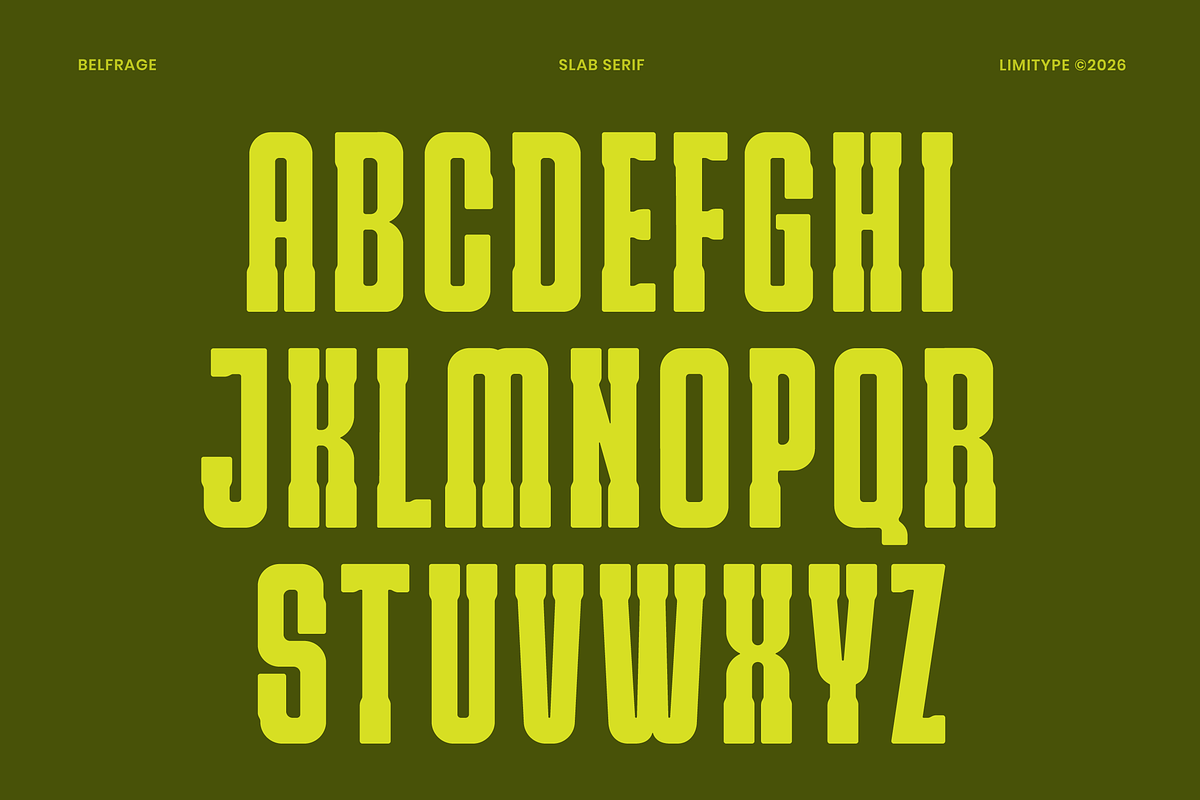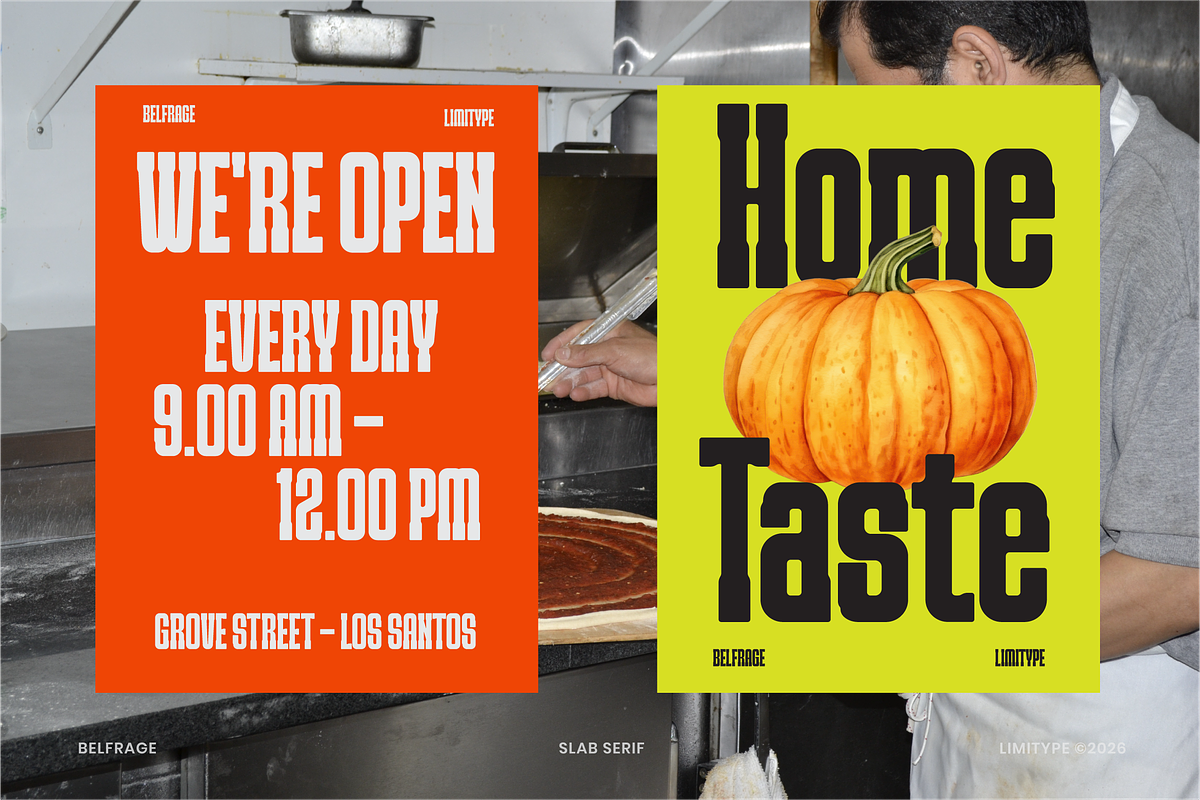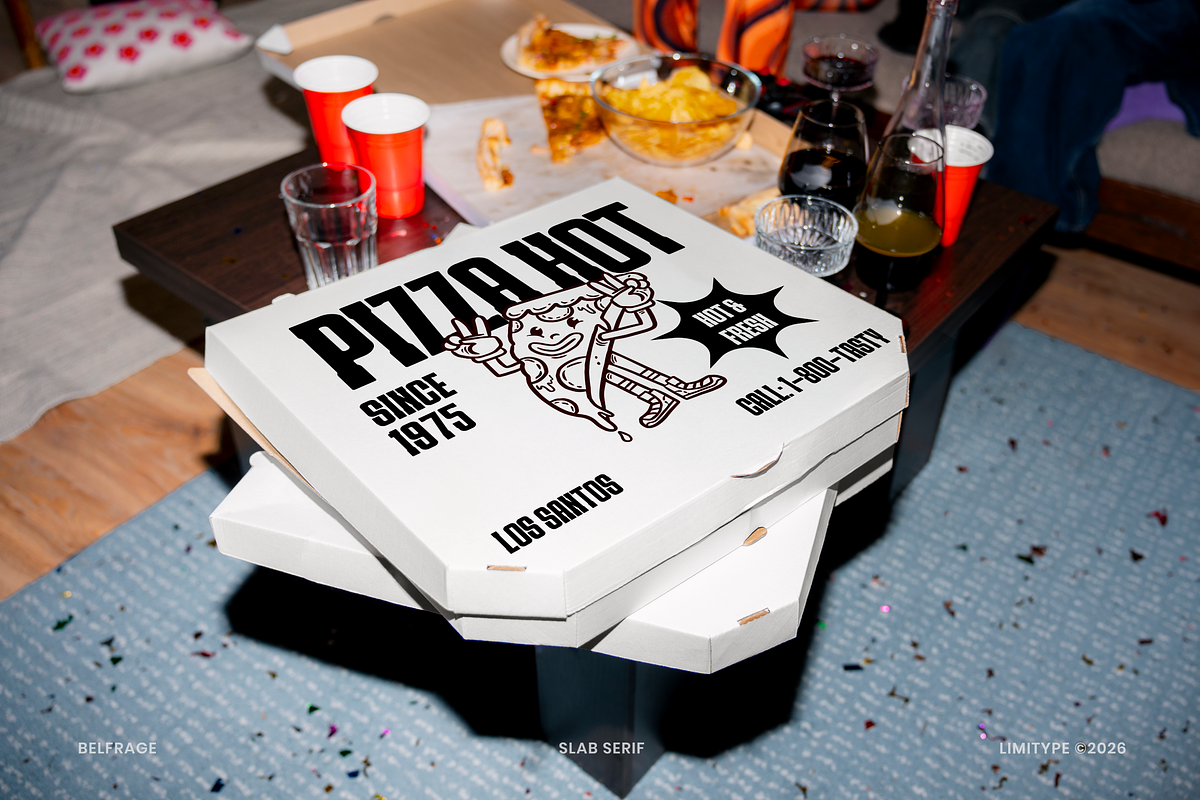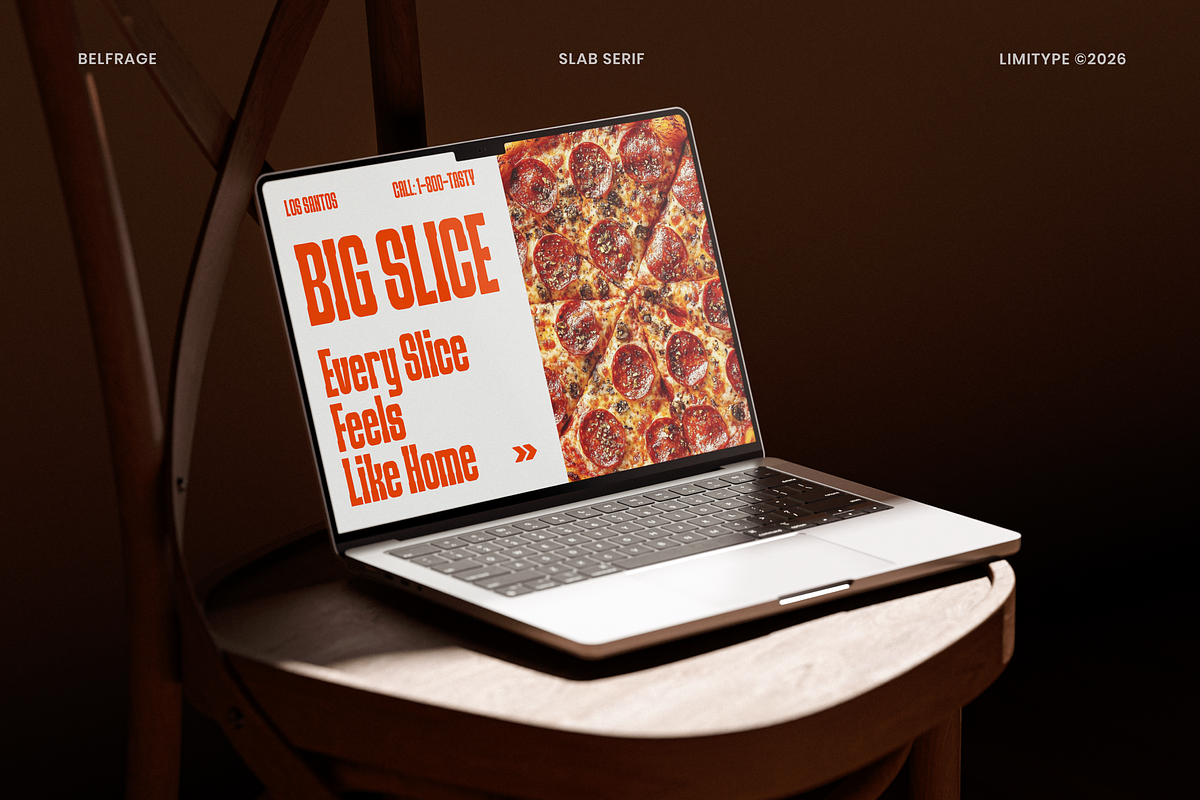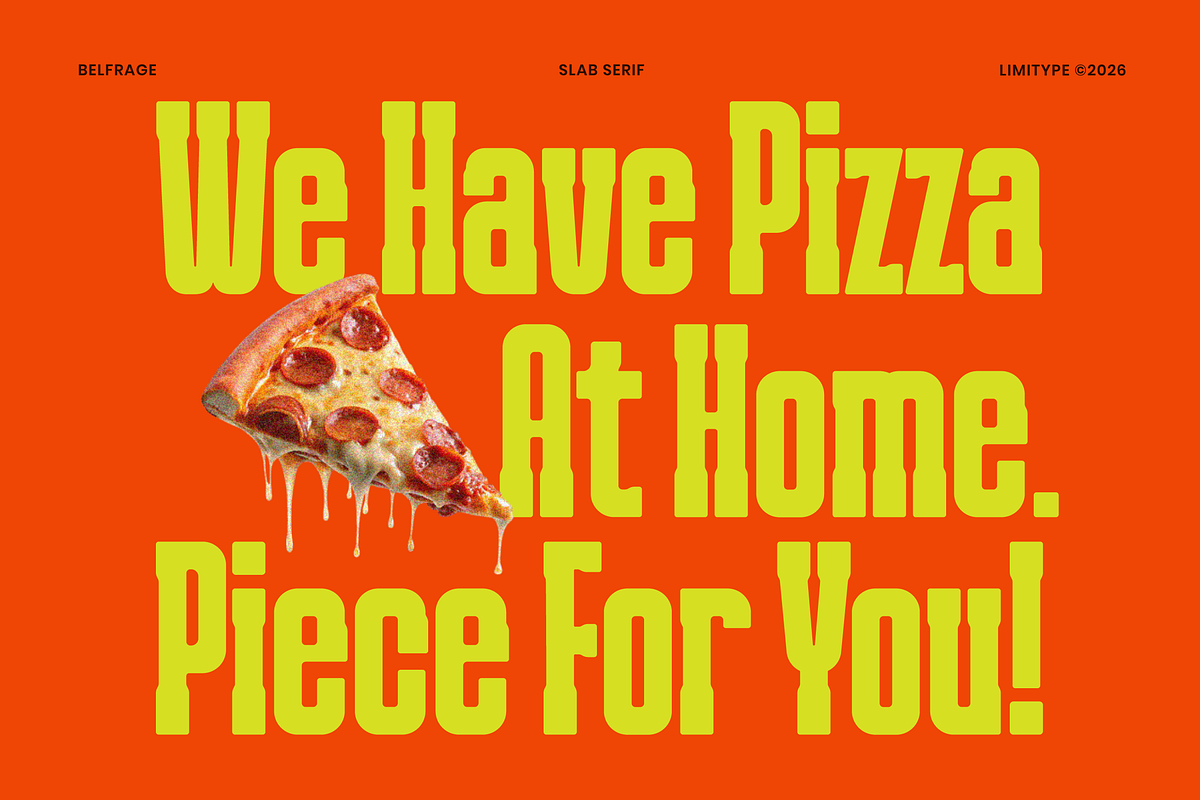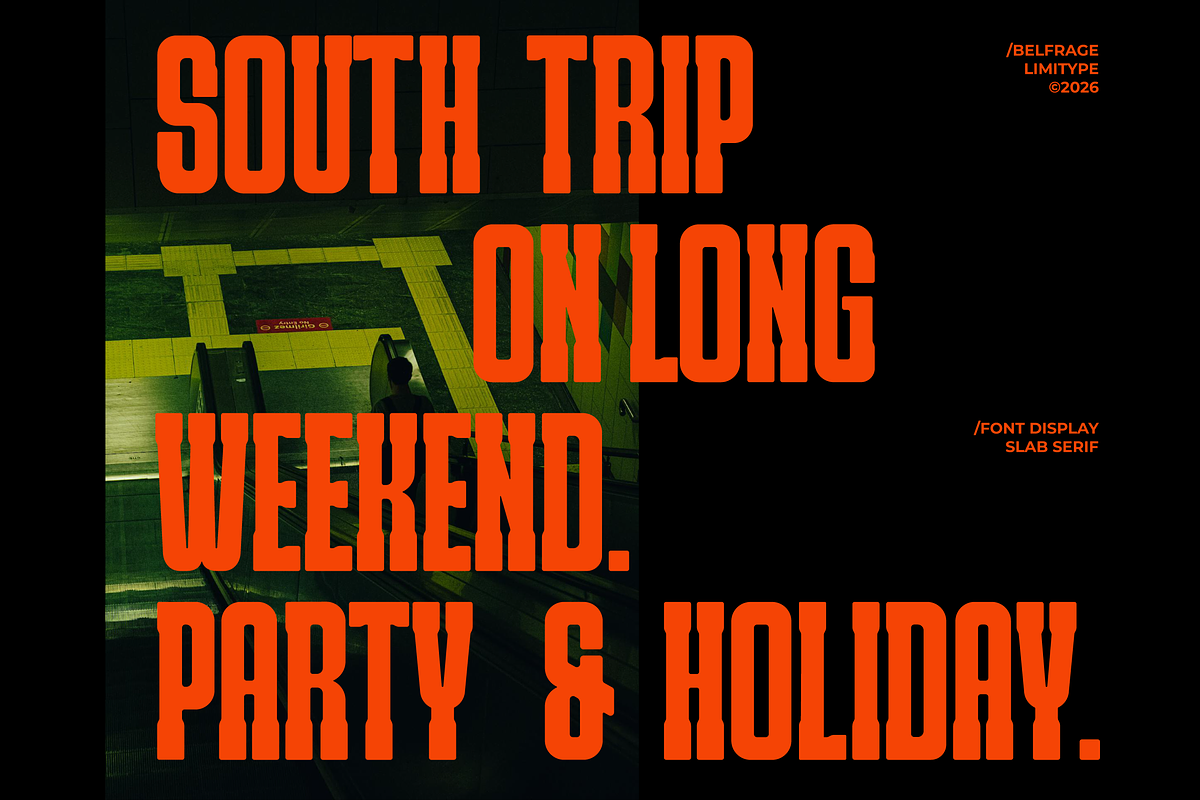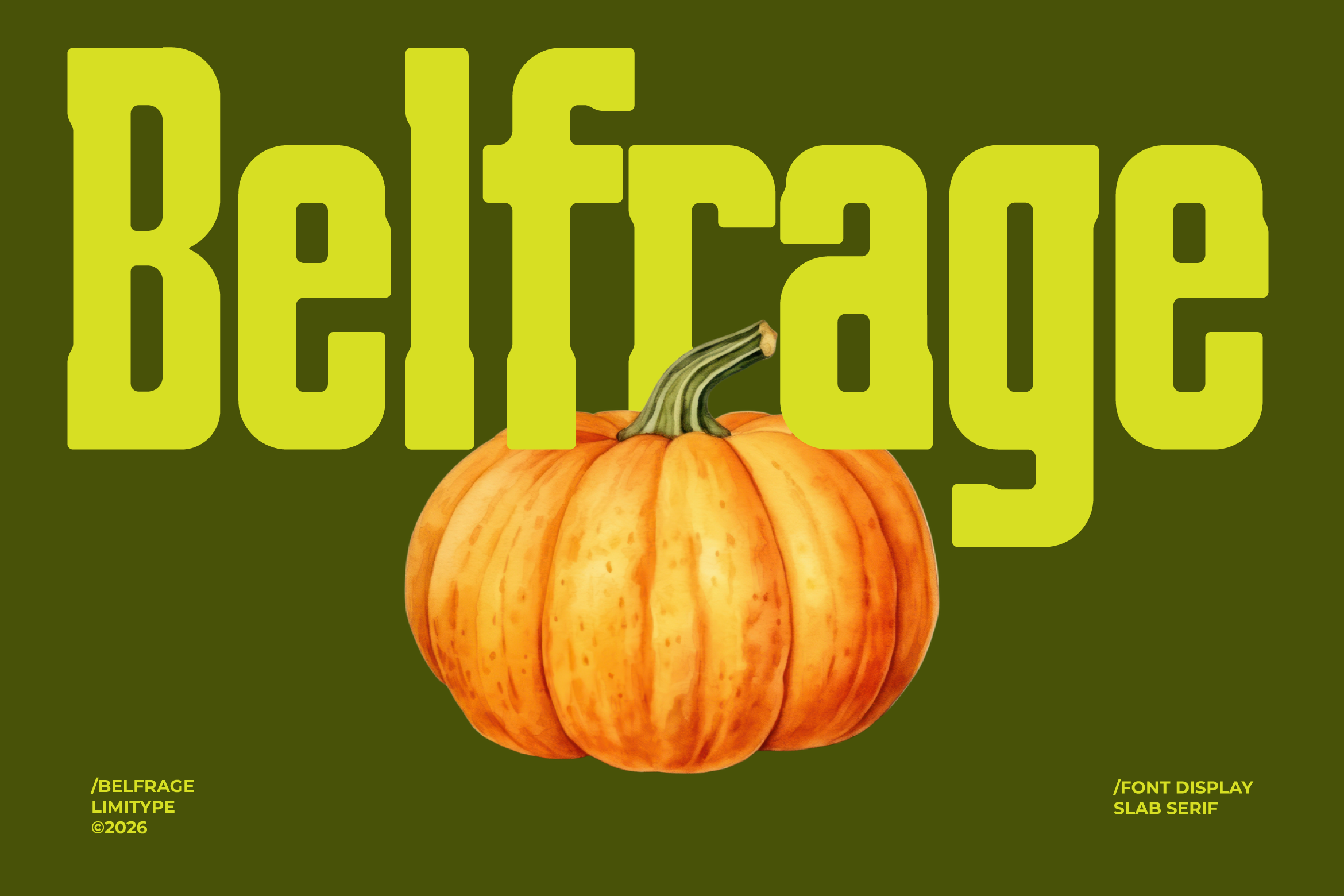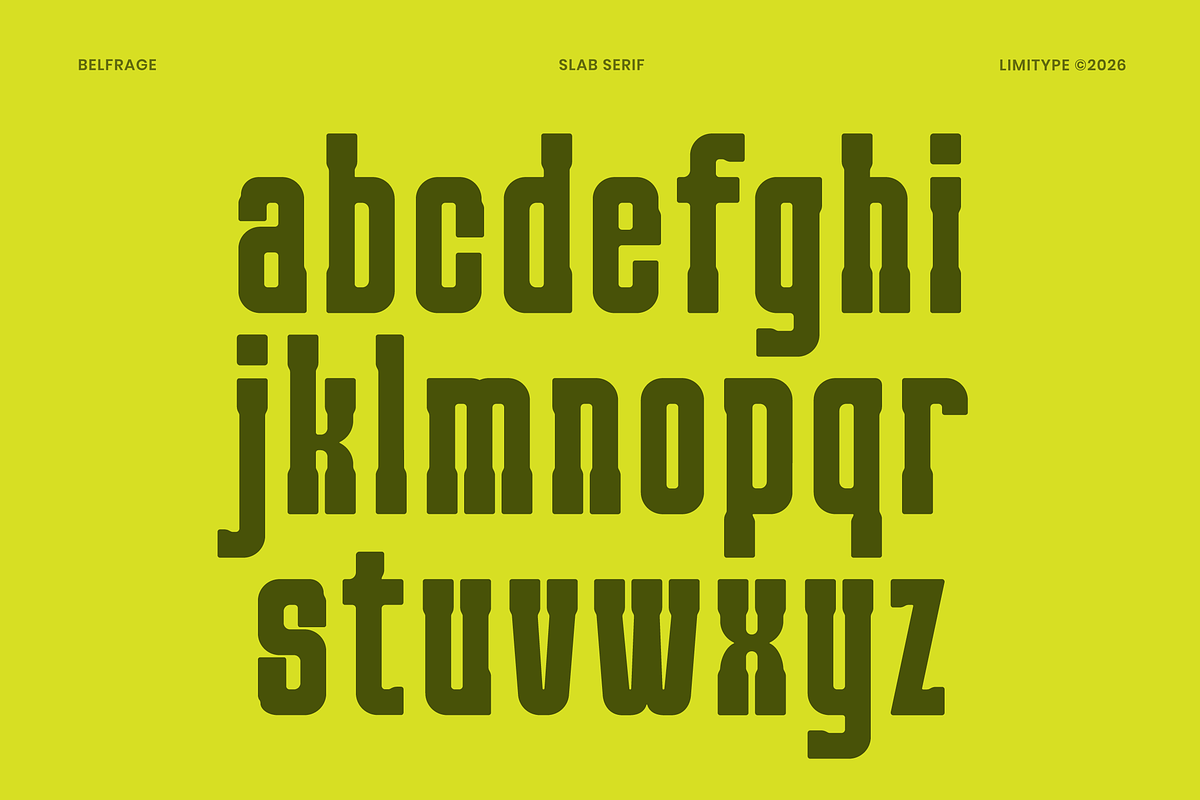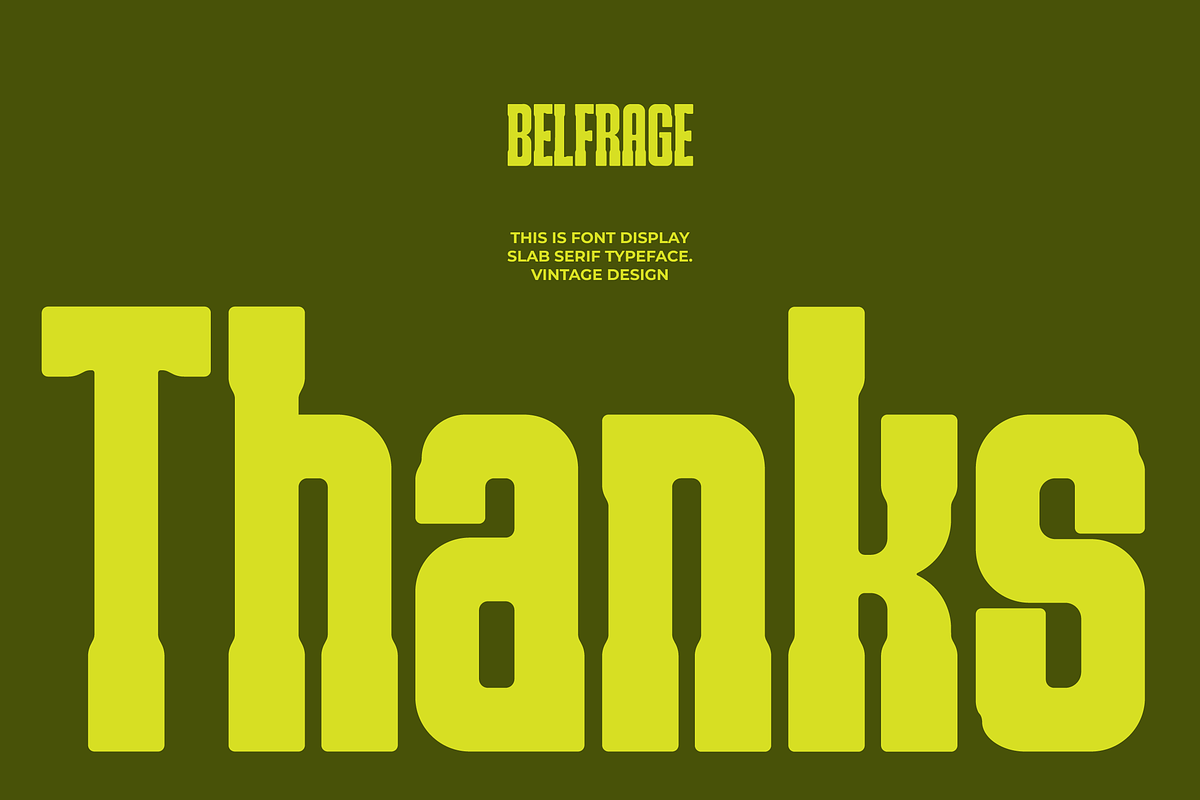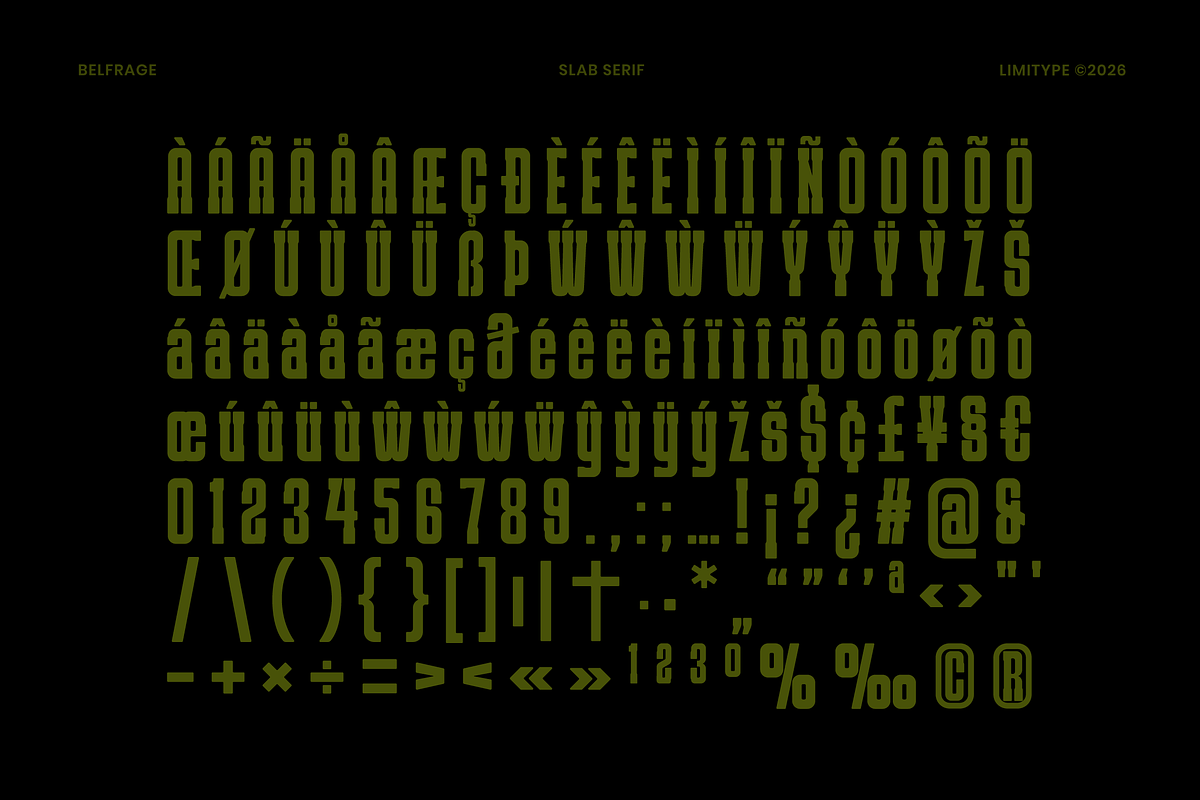
Belfrage - Slab Serif Font
Belfrage is a slab serif font featuring bold, tall letterforms with distinctive details and a confident personality. Designed to create a strong, attention grabbing presence, it is perfect for headlines, posters, branding, packaging, logotypes, and retro or vintage inspired designs. Its characteristic slab serif details, combined with slightly condensed proportions, create a bold, unique, and highly recognizable appearance. Belfrage is an ideal choice for visuals that aim to stand out and leave a lasting impression.
Belfrage available with:
Lowercase
Number
Symbol